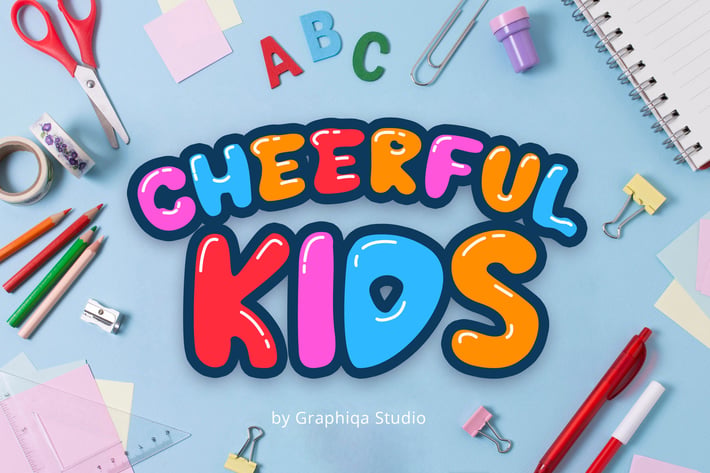
Cheerful Kids Display Font
Introducing Cheerful Kids, is a Unique Display Font has many purpose and suitable for kids activity, web header, quote, logotype, advertising and much more